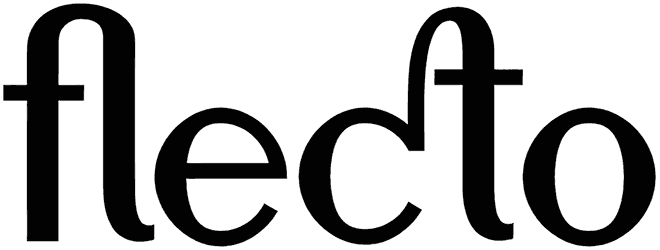
Foglihten No07 Font
Foglihten No07 is a serif font. This font was designed with curly edges and straight lines to create a classy and formal vibe that you can use for varieties of projects like printed text, magazines, fashions, decorative, headlines, ancient, weddings, etc.
This luxury serif font offers you two styles that you can choose from, each style with an incredible collection of characters. You get both the uppercase and lowercase of the alphabet and the numbers.
09.12.2013 – ver.0.841 with new initial forms, and new ligatures.
And with additional new font FoglihtenNo07calt – version with initial and terminal alternates as default (contextual alternates), and alternate “r” (from stylisticSet02).